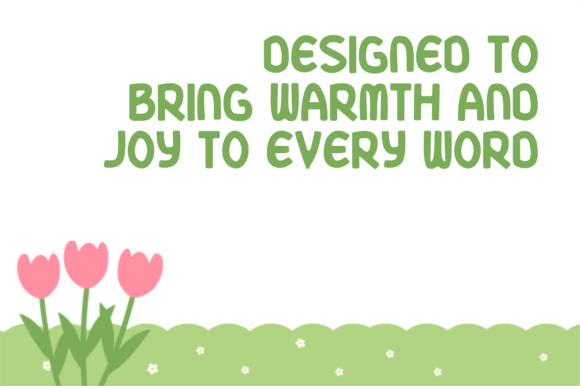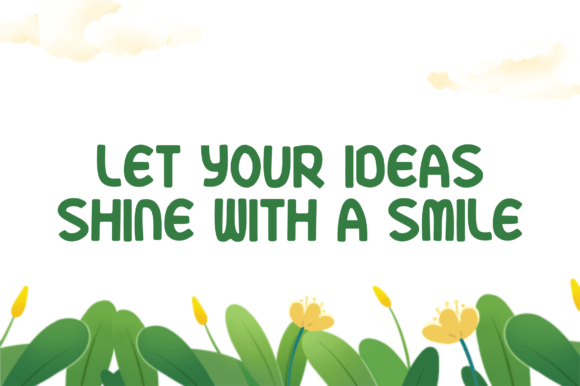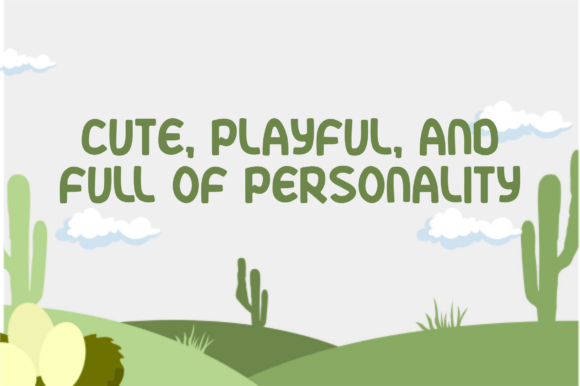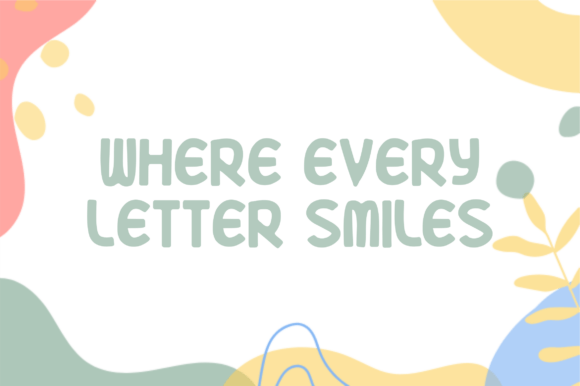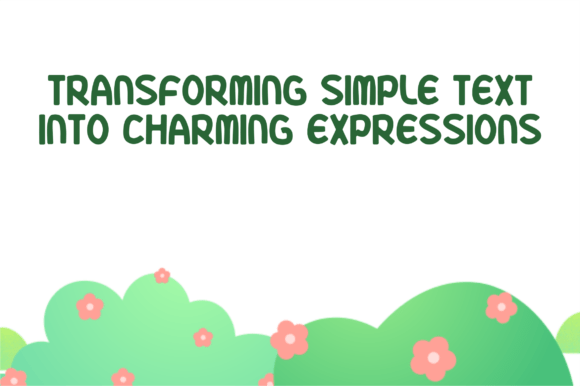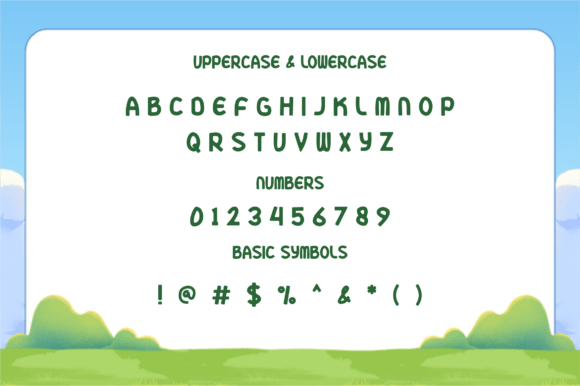
Introducing Bobbaluna Cupcake Font: The Sweetest Addition to Your Design Projects
Are you looking for a font that can add a touch of joy, creativity, and imagination to your design projects? Look no further than the Bobbaluna Cupcake font! This cheerful and adorable display font is designed to bring a smile to your face and capture the magic of childhood in every letter.
What Makes Bobbaluna Cupcake Font So Special?
Bobbaluna Cupcake font features rounded shapes, playful curves, and a friendly personality that makes it perfect for a wide range of design projects. Its soft and bubbly appearance is sure to delight audiences of all ages, making it an excellent choice for children’s books, educational materials, toy packaging, birthday invitations, nursery decorations, cartoons, branding, and more.
As a designer or crafter, you know how important it is to choose the right font for your project. You want a font that is not only visually appealing but also conveys the right tone and personality. Bobbaluna Cupcake font is the perfect choice for designers and crafters who want to add a touch of sweetness and fun to their projects.
With Bobbaluna Cupcake font, the design possibilities are endless! You can use it to create playful headlines, cute logos, colorful social media content, and more. This font is perfect for:
- Children’s books and educational materials
- Toy packaging and nursery decorations
- Birthday invitations and party decorations
- Cartoons and animation projects
- Branding and marketing materials
- Social media content and graphics
Why Choose Bobbaluna Cupcake Font?
So, why choose Bobbaluna Cupcake font for your design projects? Here are just a few reasons:
- Unique and playful design: Bobbaluna Cupcake font features a unique and playful design that is sure to stand out from the crowd.
- Easy to read: Despite its playful design, Bobbaluna Cupcake font is easy to read and understand, making it perfect for a wide range of design projects.
- Versatile: This font is versatile and can be used for a wide range of design projects, from children’s books to branding and marketing materials.
- High-quality: Bobbaluna Cupcake font is a high-quality font that is designed to deliver exceptional results.
How to Use Bobbaluna Cupcake Font
Here are a few tips and tricks to help you get the most out of Bobbaluna Cupcake font:
- Experiment with different colors: Bobbaluna Cupcake font looks great in a wide range of colors, so don’t be afraid to experiment and find the perfect color for your project.
- Pair it with other fonts: Bobbaluna Cupcake font pairs well with other fonts, so try pairing it with a sans-serif font for a fun and playful look.
- Use it for headlines and titles: Bobbaluna Cupcake font is perfect for headlines and titles, so use it to add a touch of personality to your design projects.
| Font Name | Bobbaluna Cupcake Font |
| Author | futuristypestudio |
In conclusion, Bobbaluna Cupcake font is a cheerful and adorable display font that is perfect for designers and crafters who want to add a touch of joy, creativity, and imagination to their design projects. With its soft and bubbly appearance, playful curves, and friendly personality, this font is sure to delight audiences of all ages. Whether you’re creating children’s books, educational materials, toy packaging, birthday invitations, nursery decorations, cartoons, branding, or social media content, Bobbaluna Cupcake font is the perfect choice. So why wait? Download Bobbaluna Cupcake font today and let your creativity shine!